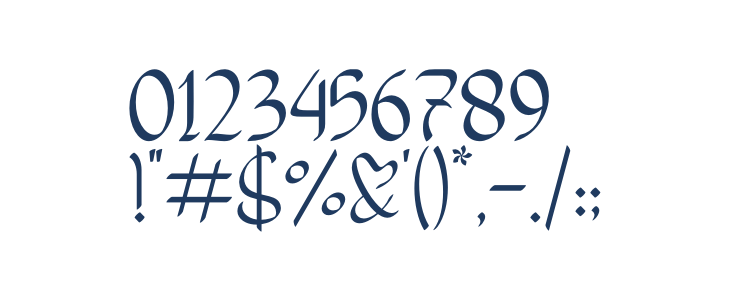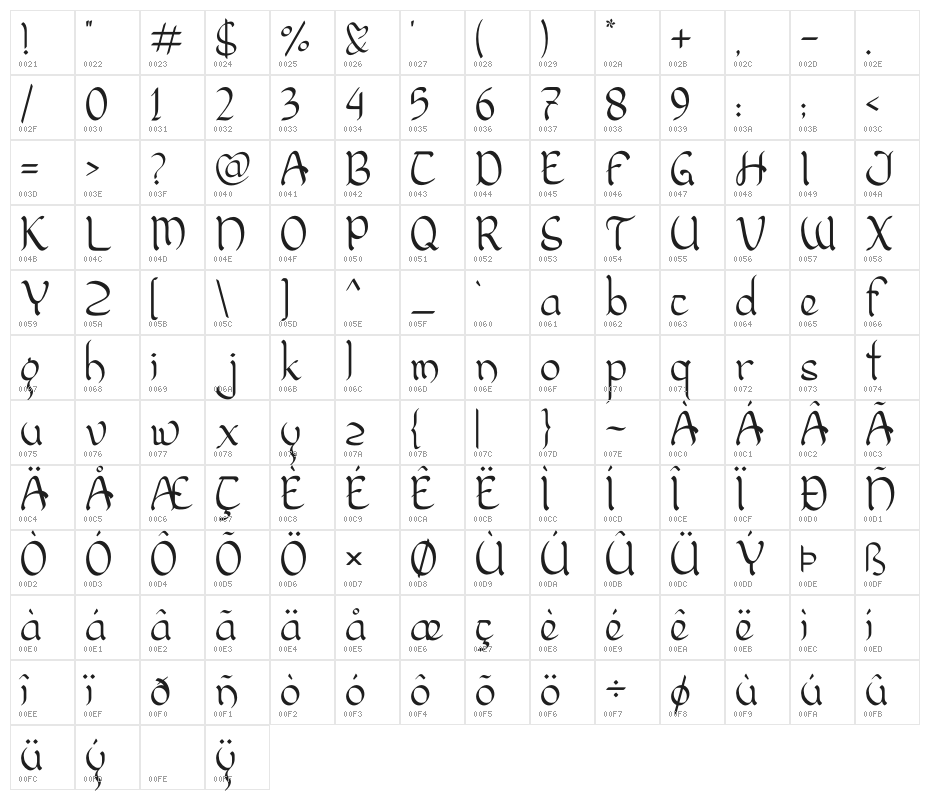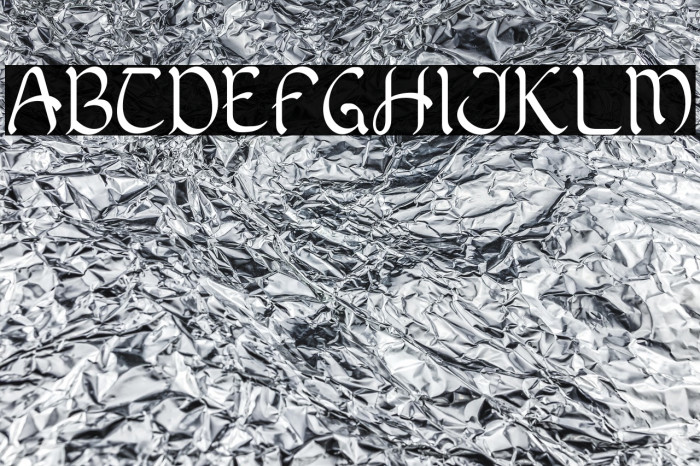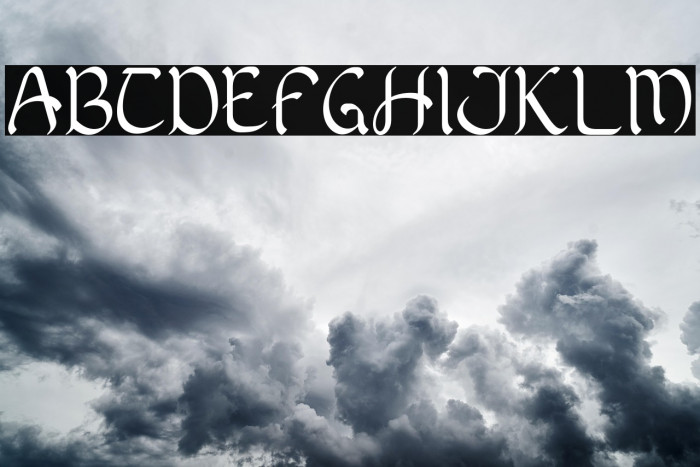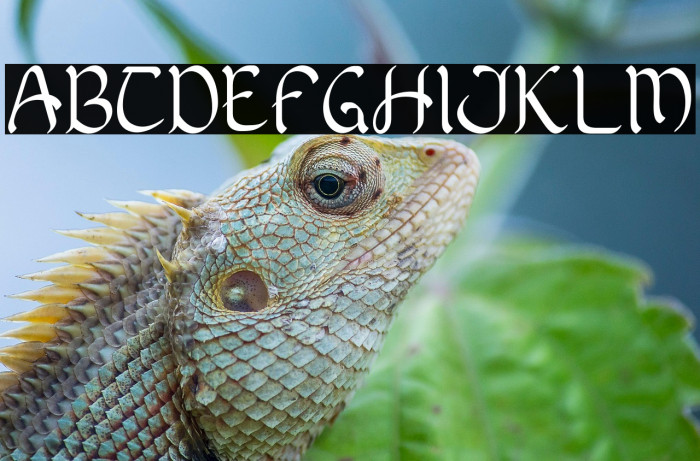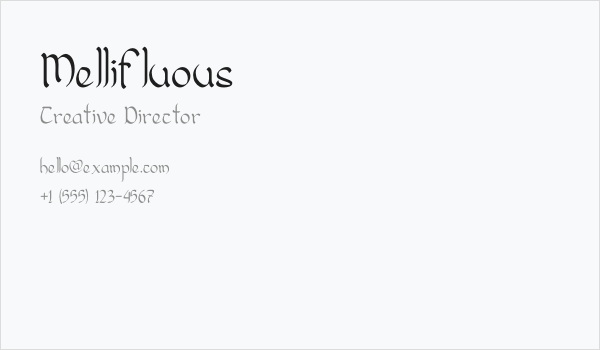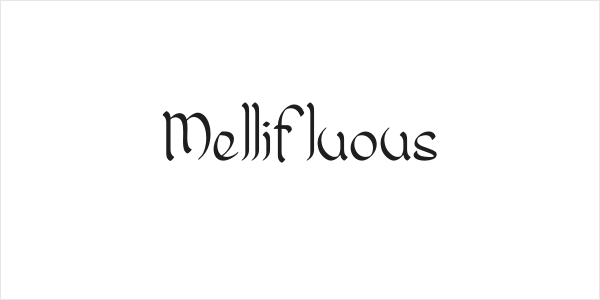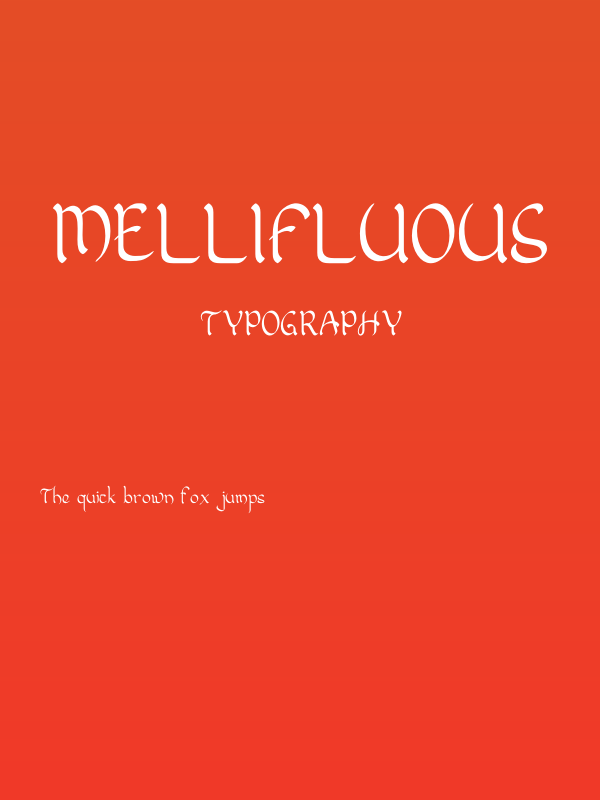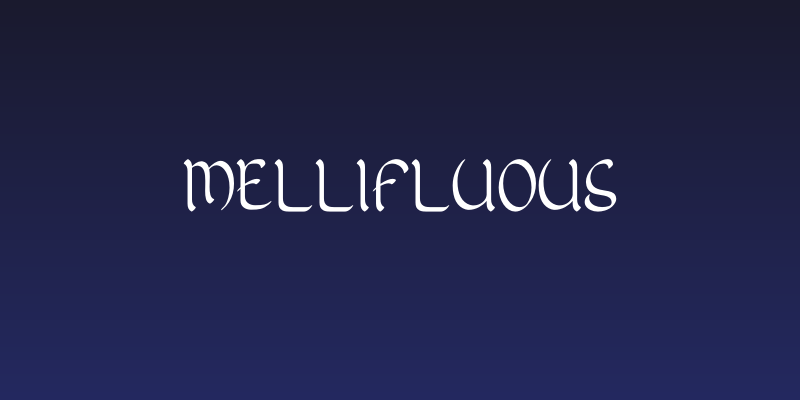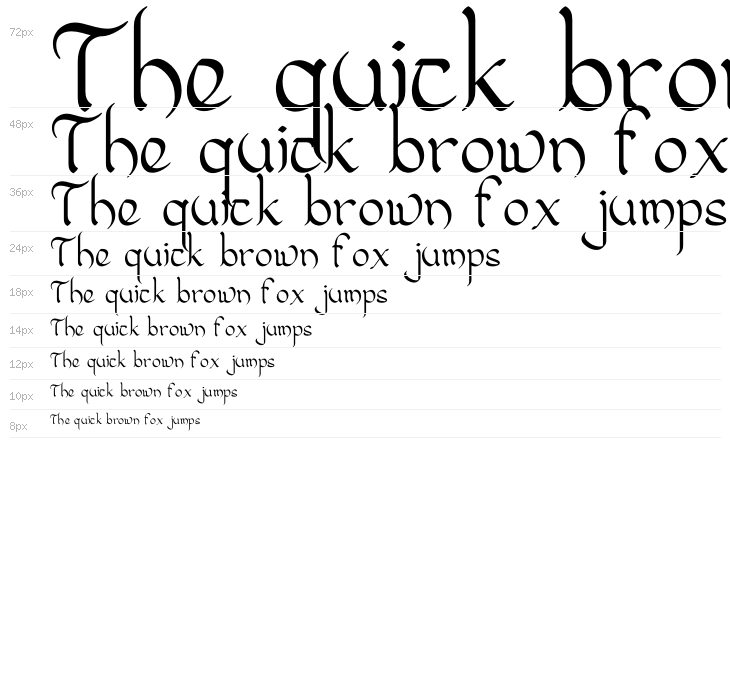
Mellifluous Font
Mellifluous Description
This font features a unique blend of elegance and flair, characterized by its flowing, cursive-like strokes and distinctive serifs. The uppercase letters exhibit a graceful curvature, while the lowercase letters maintain a consistent rhythm with slightly exaggerated ascenders and descenders. Numbers are bold and clear, ensuring readability. Special characters are creatively designed, adding a whimsical touch to the overall aesthetic. The font's artistic style makes it suitable for projects that require a touch of sophistication and creativity.